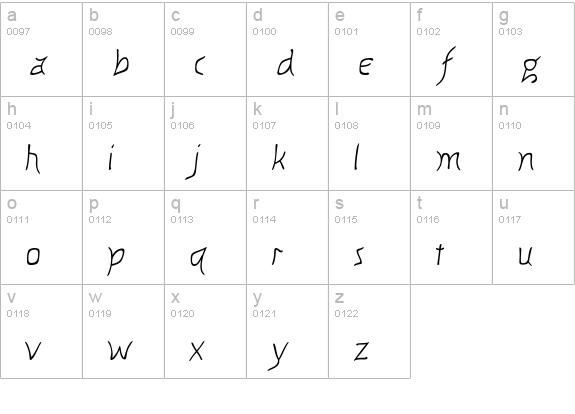
KnewFontWaisted Font Details
Introducing KnewFontWaisted, a captivating and versatile font that is sure to elevate your designs to new heights. This font combines elegance with a touch of whimsy, making it perfect for a wide range of creative projects. From wedding invitations to branding materials, KnewFontWaisted adds a unique and eye-catching element that will leave a lasting impression. With its beautifully crafted letterforms and intricate details, KnewFontWaisted stands out among other fonts. Its flowing curves and graceful strokes create a sense of movement and sophistication, making it ideal for both formal and informal designs. Whether you're designing a logo, creating a poster, or crafting a social media post, this font will effortlessly enhance your message. One of the best features of KnewFontWaisted is that it is available for free download at FontsMarket.com. Yes, you read that right – this stunning font can be yours at no cost. FontsMarket.com offers a wide range of high-quality fonts for designers, and KnewFontWaisted is just one of the many gems you'll find there. So why wait? Download KnewFontWaisted now and unlock a world of creative possibilities. Let this font inspire you to push the boundaries of your designs and captivate your audience with its unique charm. With KnewFontWaisted, your projects will stand out from the crowd and make a lasting impression. Embrace the beauty and versatility of this font and let your creativity soar.